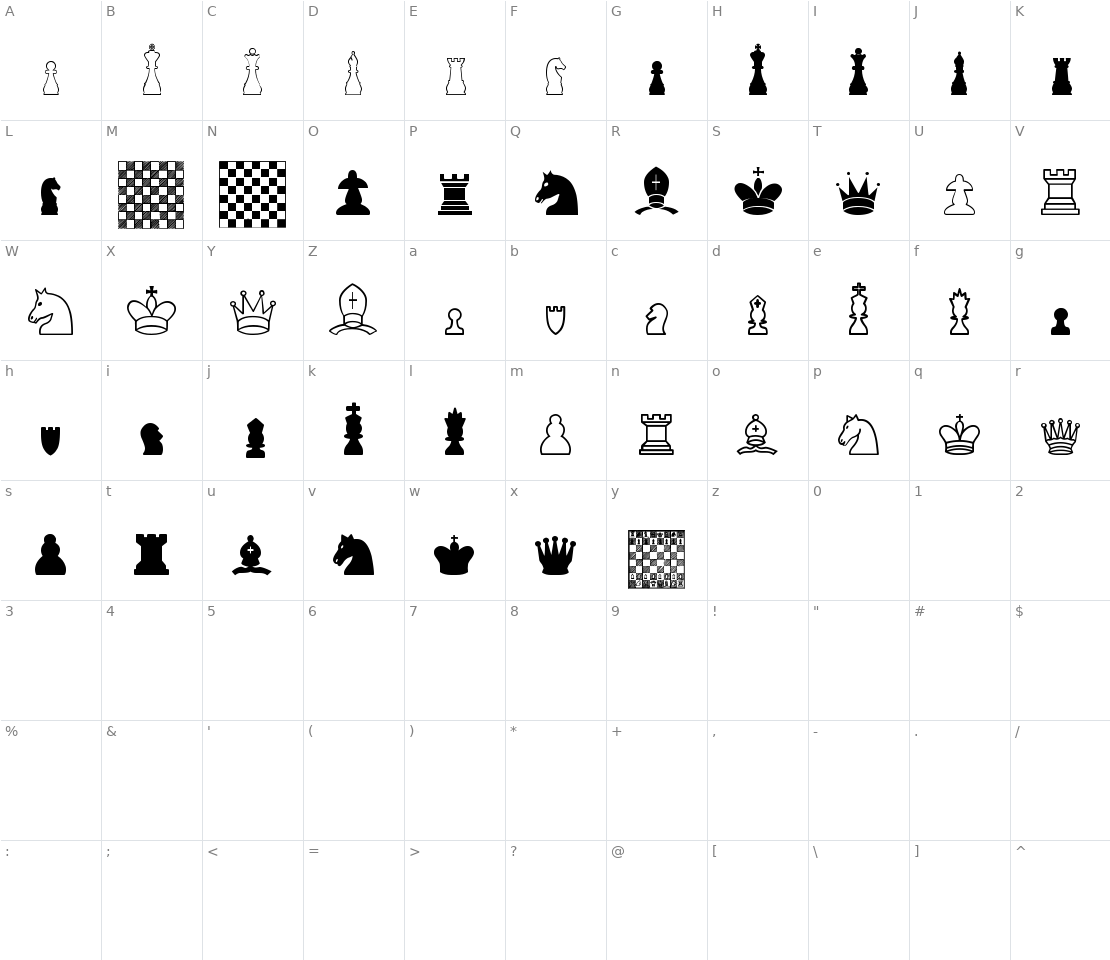
Chess TFB
Chess TFB is a dingbat font by zanatlija containing chess piece symbols rather than traditional letterforms. It includes the standard set of kings, queens, rooks, bishops, knights, and pawns in both filled and outline styles, making it useful for diagramming board positions, printing scoresheets, or illustrating chess tutorials without needing separate image files.